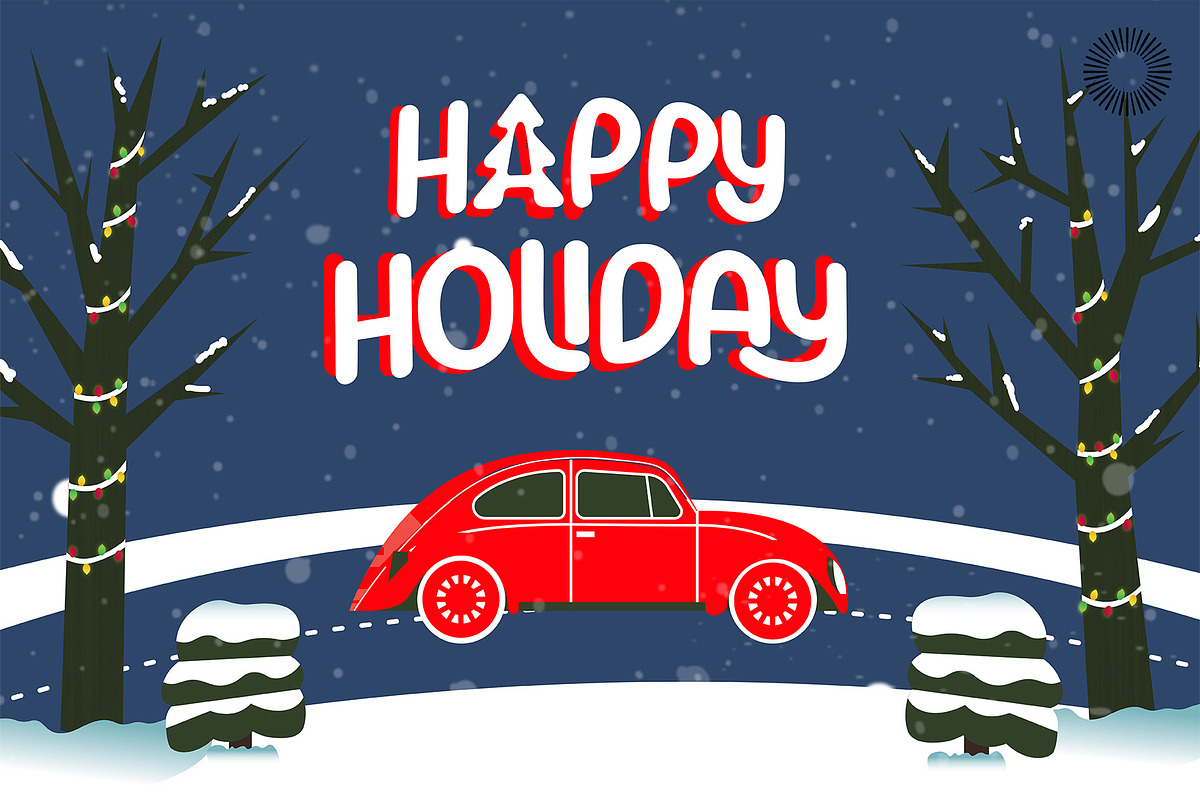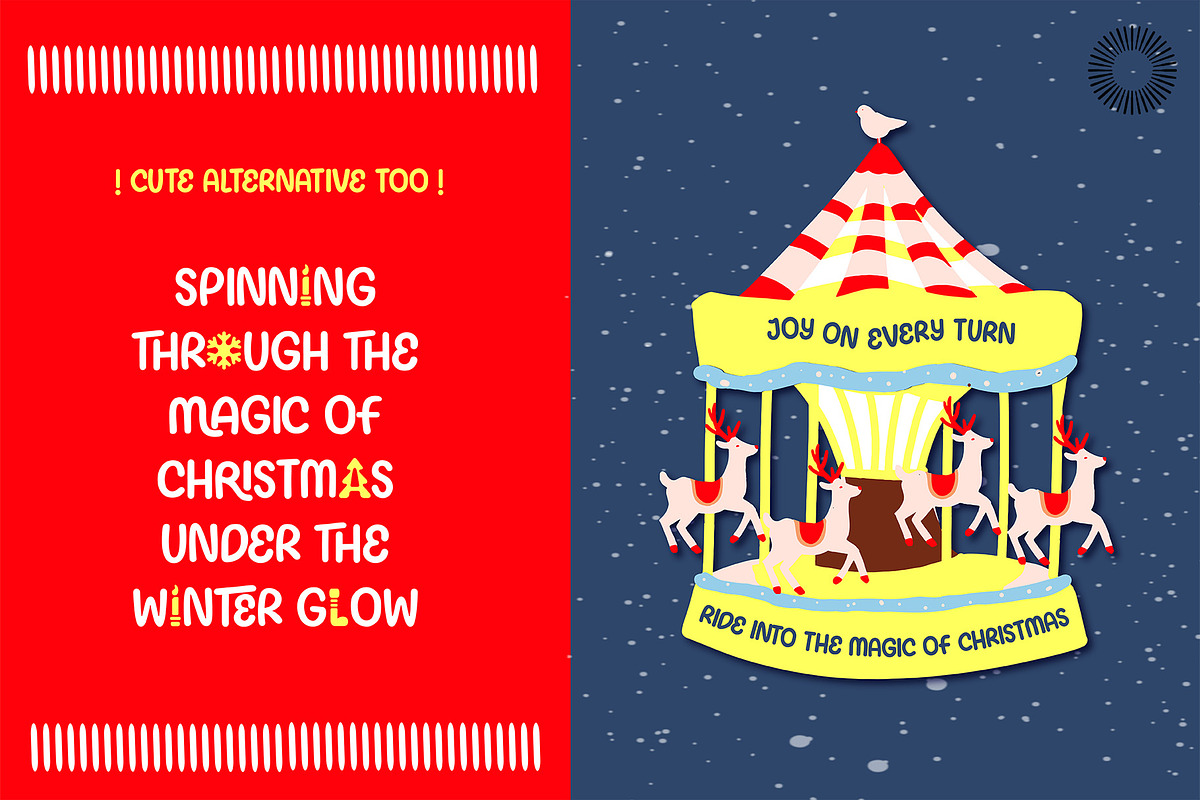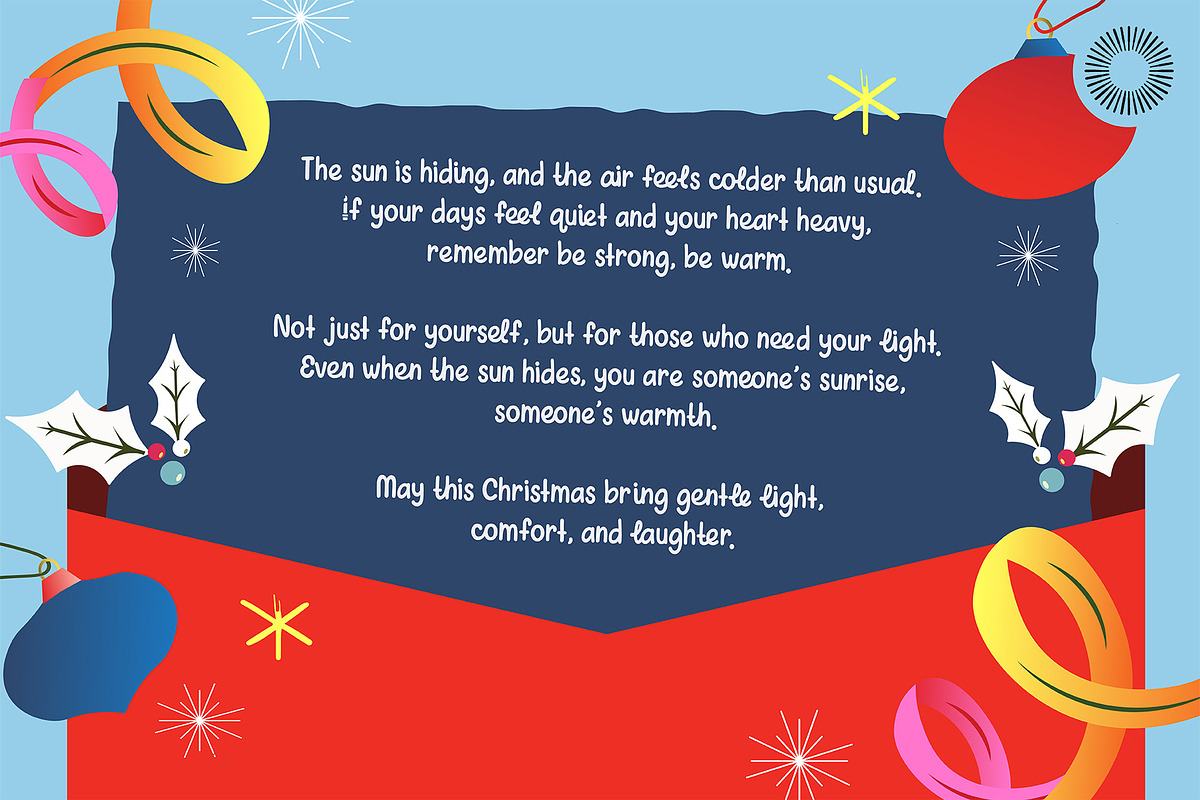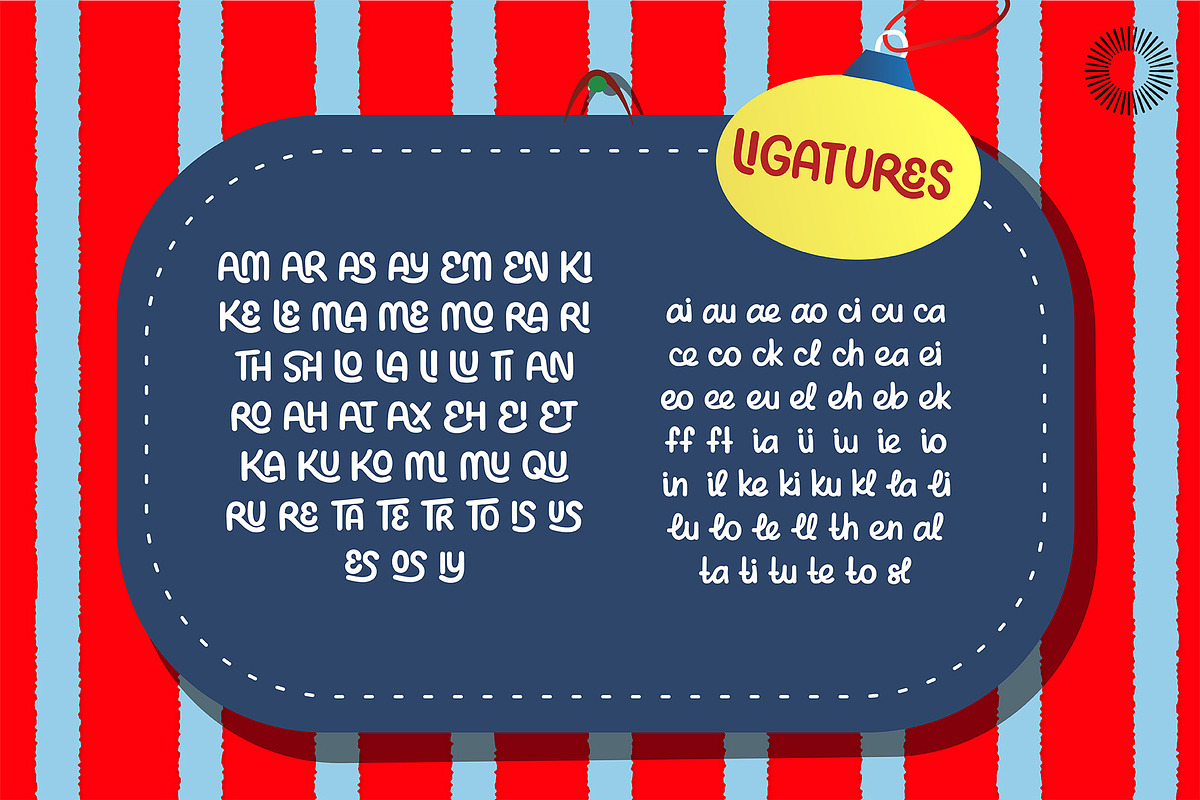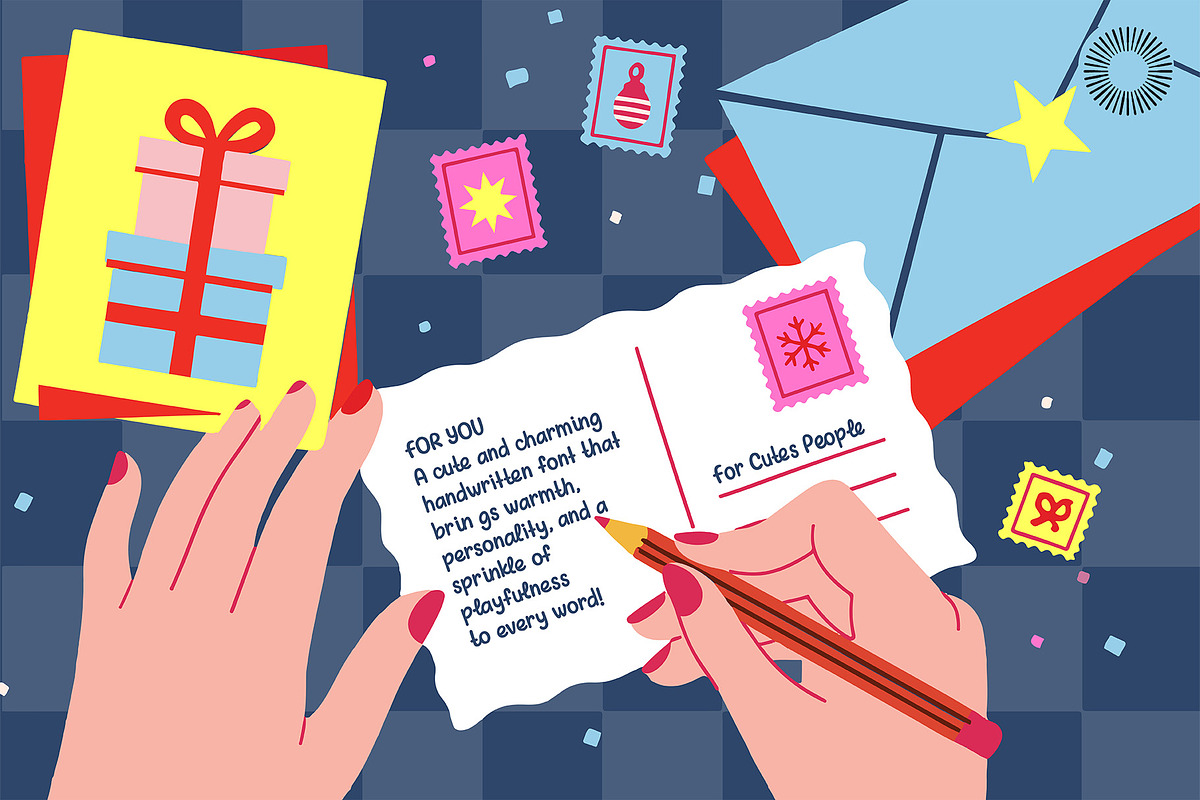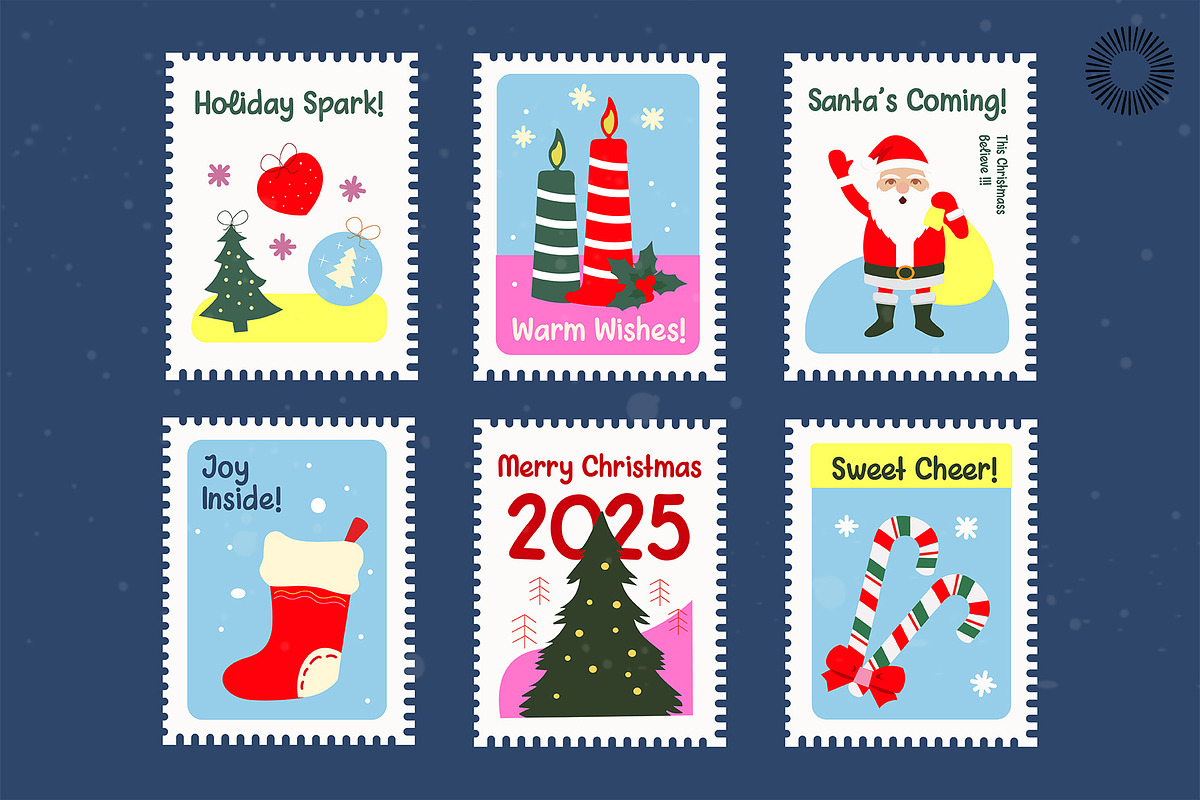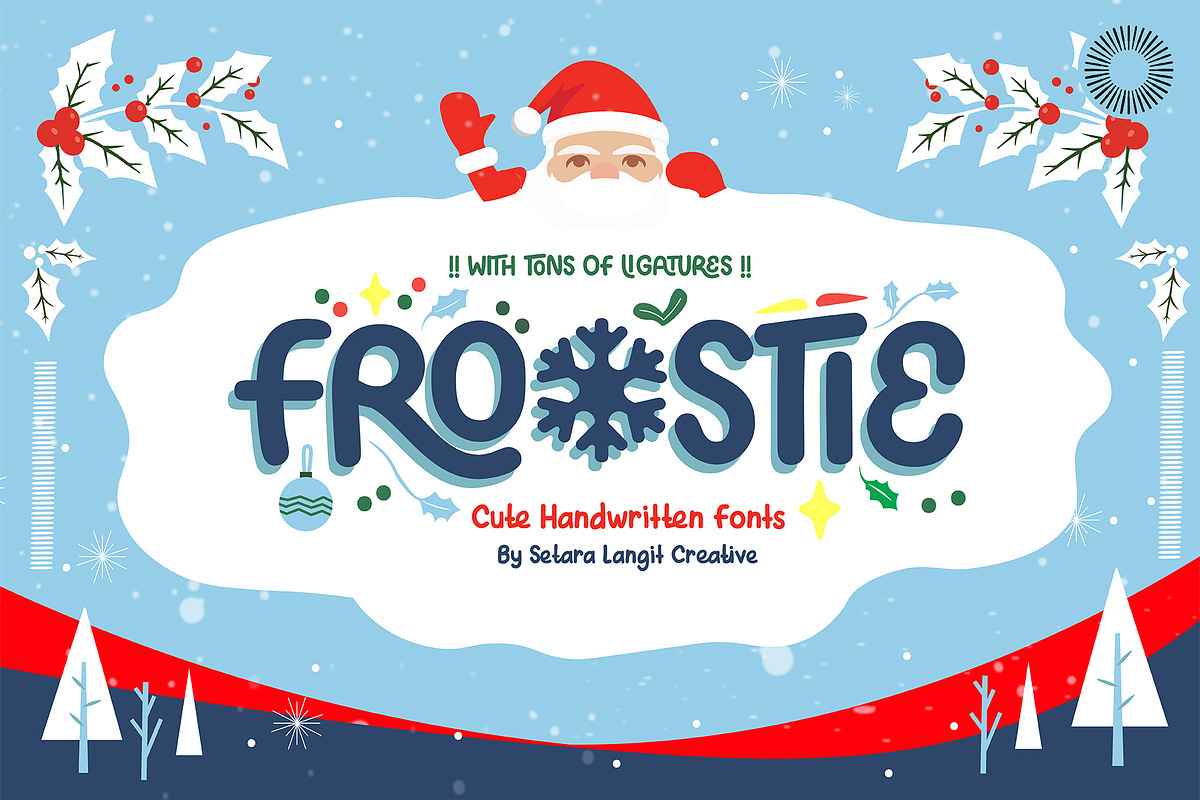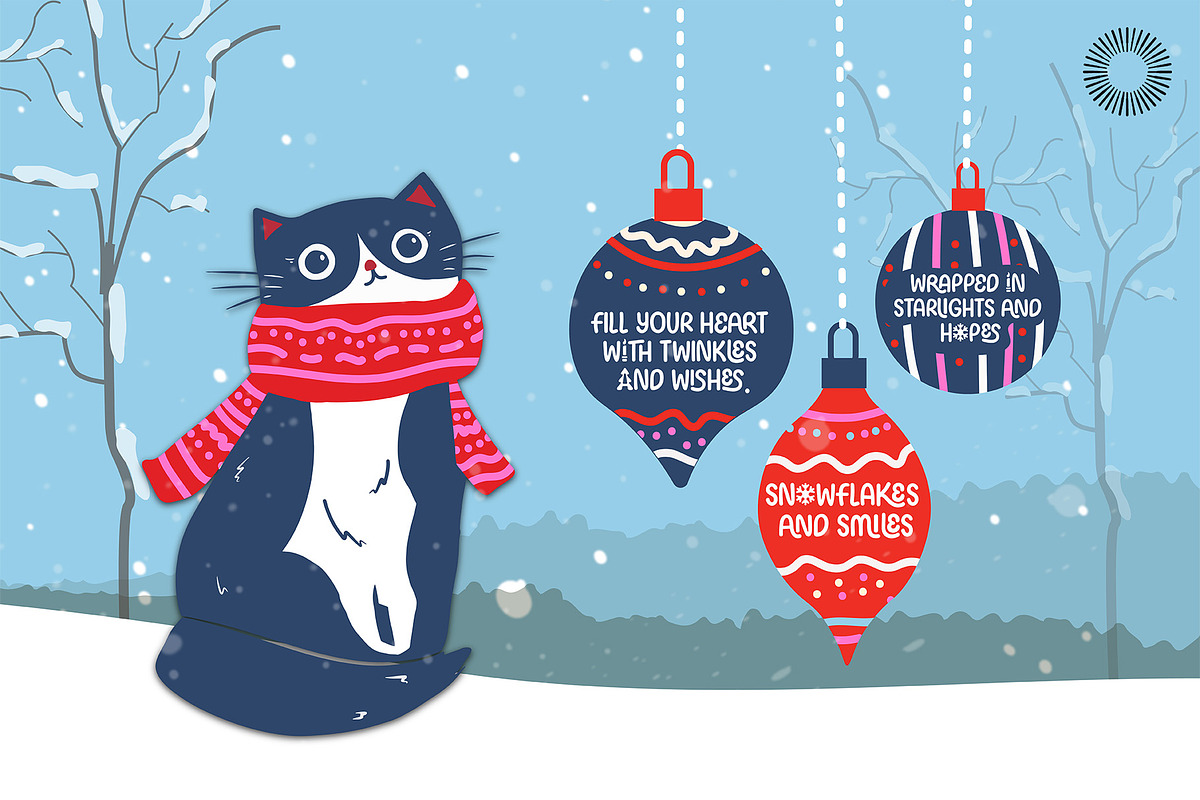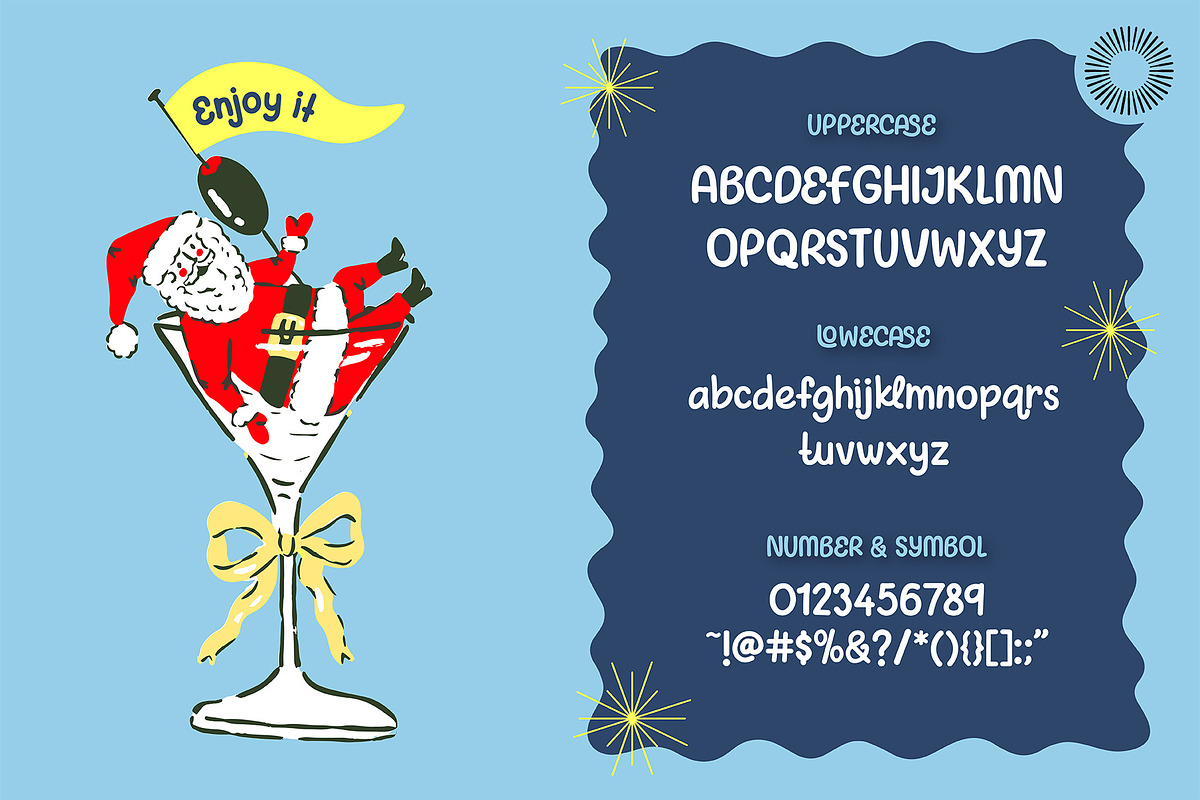
Froostie - Handwritten
Frostie is a cute handwritten font that captures the cozy warmth and playful spirit of Christmas. Every curve and line feels as soft as freshly fallen snow — cheerful, rounded, and full of life. Designed to make your words sparkle with joy, Frostie blends the charm of handwritten notes with the fun of festive doodles. Its unique ligatures dance like snowflakes, giving each word a natural flow and delightful surprise. Perfect for Christmas cards, gift tags, winter packaging, and family invitations, Frostie brings that magical, handwritten touch that makes every design feel personal. Whether it’s for cozy home decor, a cheerful children’s project, or heartwarming holiday branding, Frostie wraps your message in the warmth of the season. a font that feels like a hug in letter form.